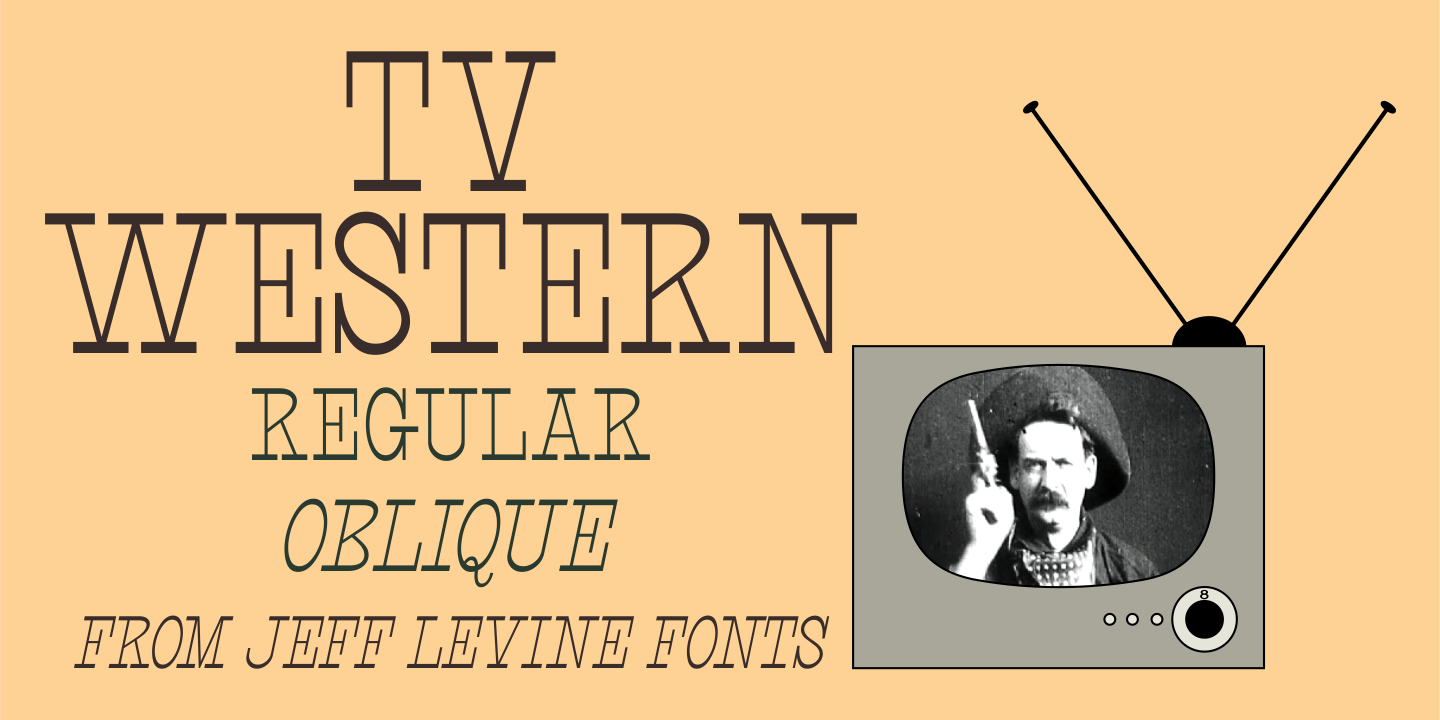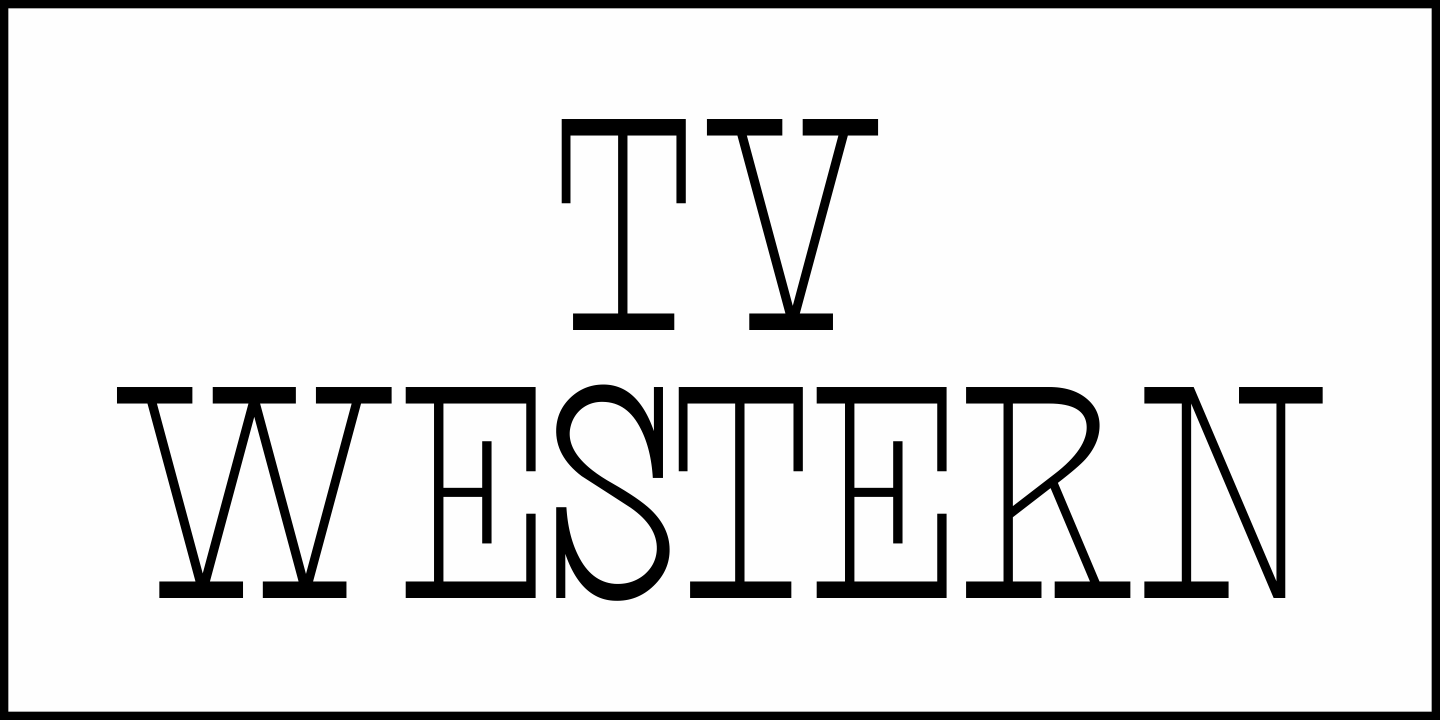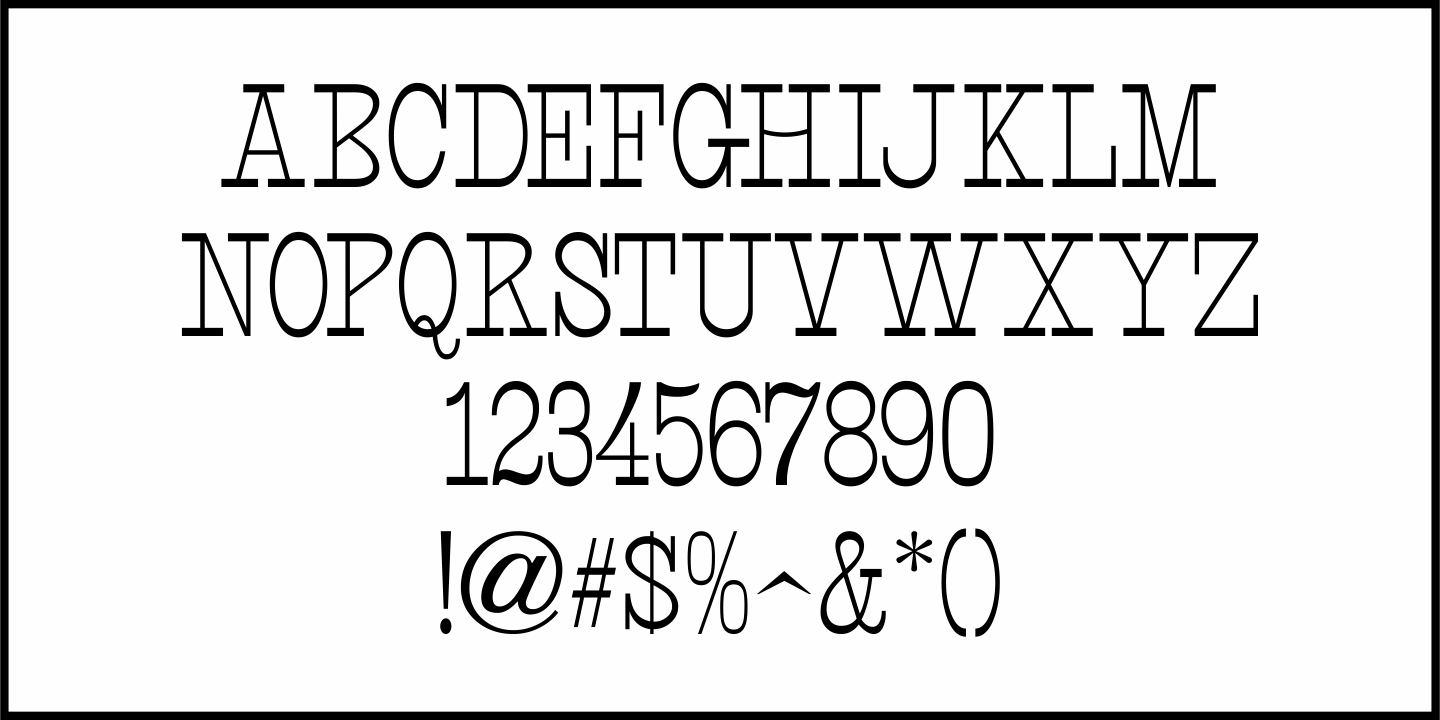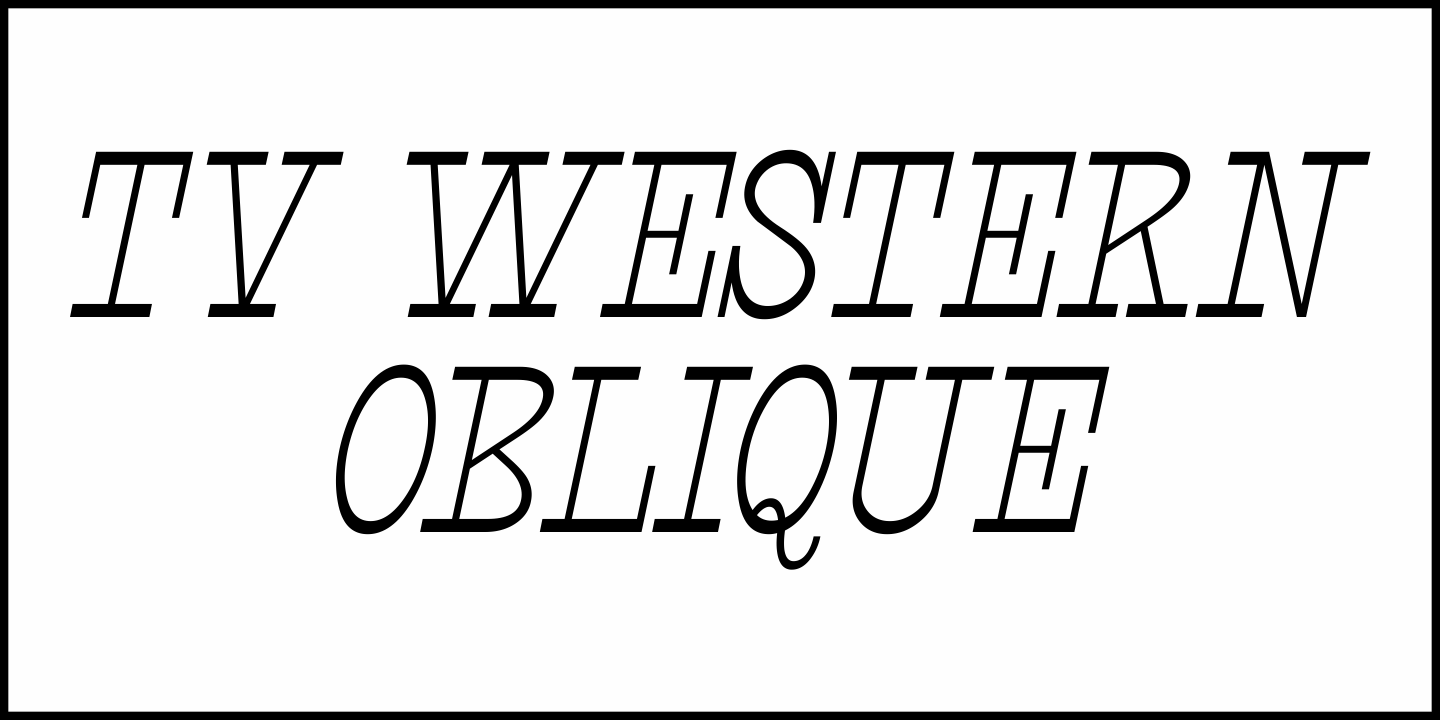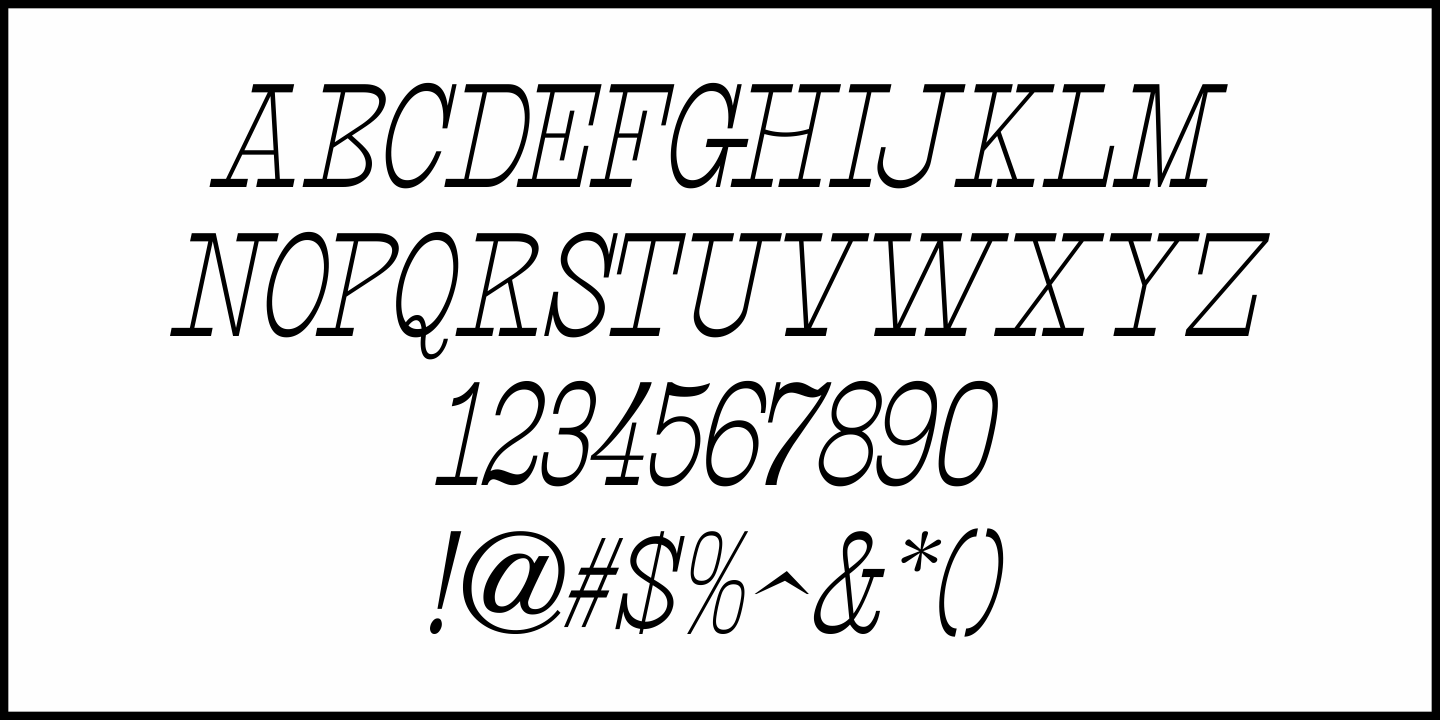
TV Western
In the 1889 Franklin Type Foundry specimen book is a type face called “Armenian”.
With lighter weight horizontal slab serifs than more traditional Western fonts, it could be pictured as being used as copy on wanted posters or town notices.
This is now available as TV Western JNL in both regular and oblique versions.